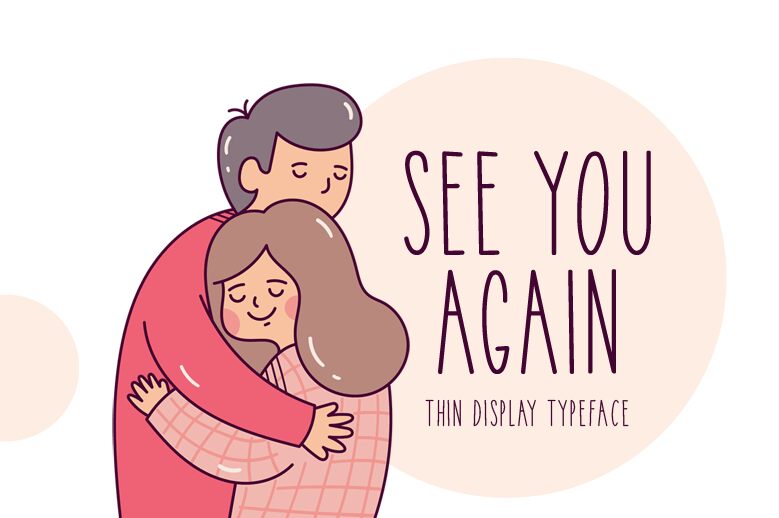
See You Again, crafted by the talented Md Shohail Bhuian, is a captivating handwritten font that exudes warmth and authenticity. With its semi-light weight and extra-condensed width, this typeface lends itself perfectly to various creative projects.
Its whimsical curves and delicate strokes make it ideal for greeting cards, wedding invitations, and personalized stationery. Furthermore, its charming personality adds a touch of playfulness to children's book illustrations or blog headers.
Let See You Again bring a sense of genuine connection to your designs with its graceful handwritten style.